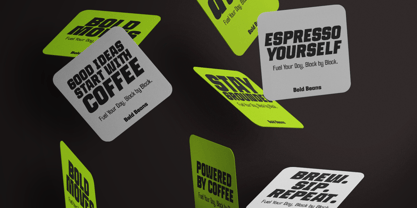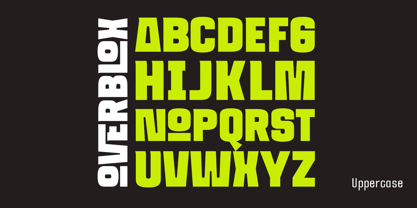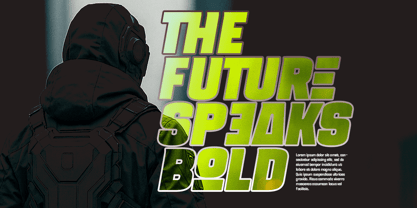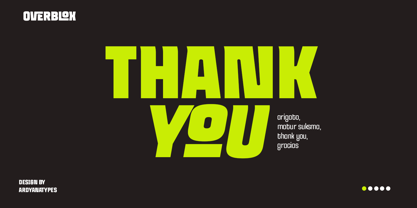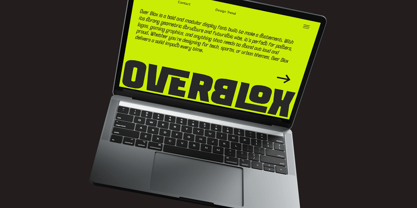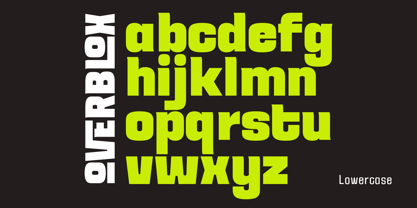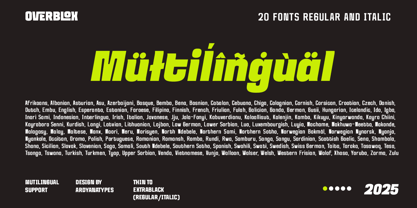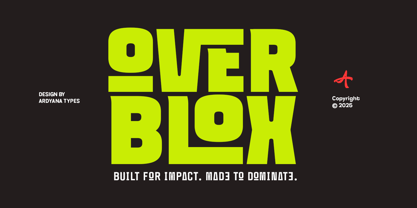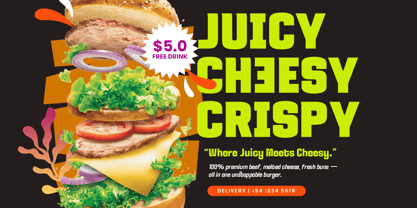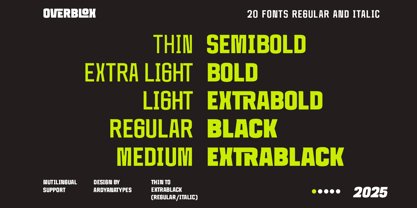
Overblox
by Ardyanatypes
The Overblox Font Family was designed by Ardyana Putra and published by Ardyanatypes. Overblox contains 20 styles and family package options. More about this family
OVERBLOX is a striking display font designed to make a bold statement in any design project. It includes 20 styles ranging from Thin to ExtraBlack, along with italic versions for Thin and ExtraBlack, offering exceptional versatility for various applications. The font's blocky, confident, and futuristic shapes lend themselves perfectly to streetwear branding, skateboard graphics, concert posters, game titles, and logos that seek to capture attention. With advanced typographic features such as ligatures and alternate characters, you can craft unique and memorable typography compositions. Furthermore, its multilingual support ensures that OVERBLOX is equipped for global reach. If you want a typeface that exudes impact and presence, OVERBLOX is your go-to design tool. Elevate your next project with its dynamic and bold flair!
Designers: Ardyana Putra
Foundry: Ardyanatypes
Overblox